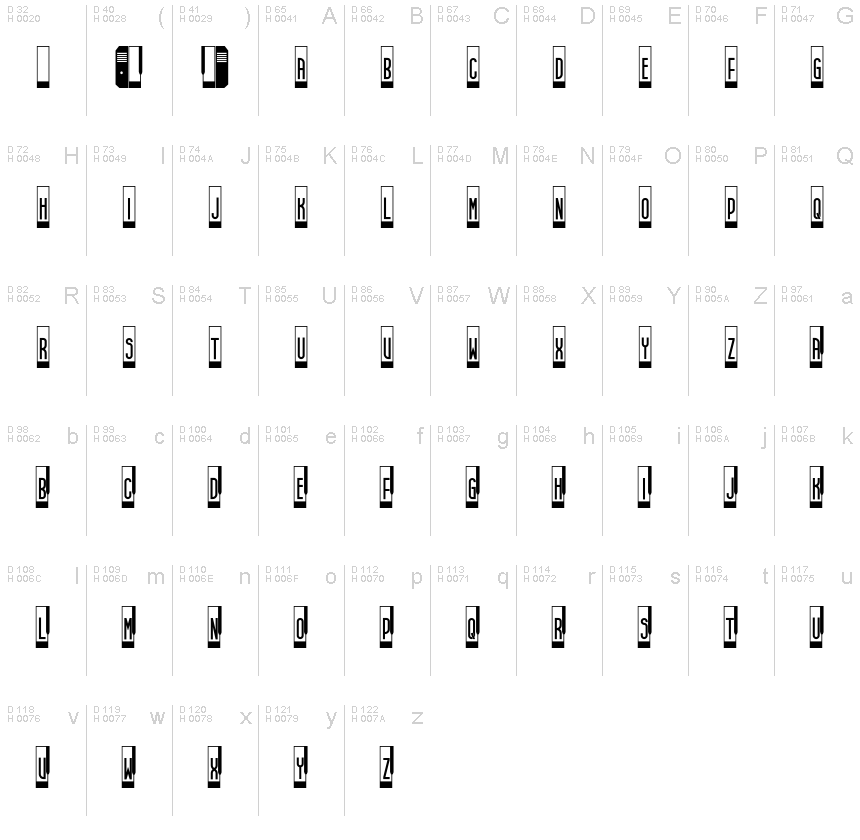
Synthesiser Regular
Synthesiser font captures attention with its condensed, decorative style. Crafted by Vladimir Nikolic, this display font stands out with its unique aesthetic appeal, characterized by sleek lines and bold geometric shapes. The Synthesiser font exudes a futuristic vibe, perfect for projects that demand a modern touch.